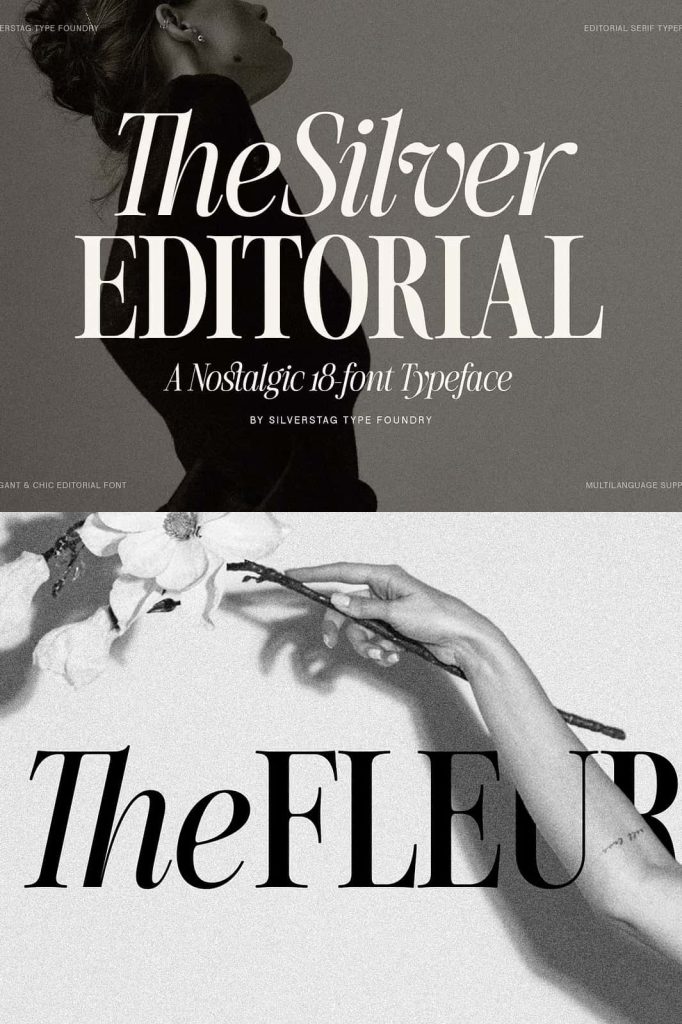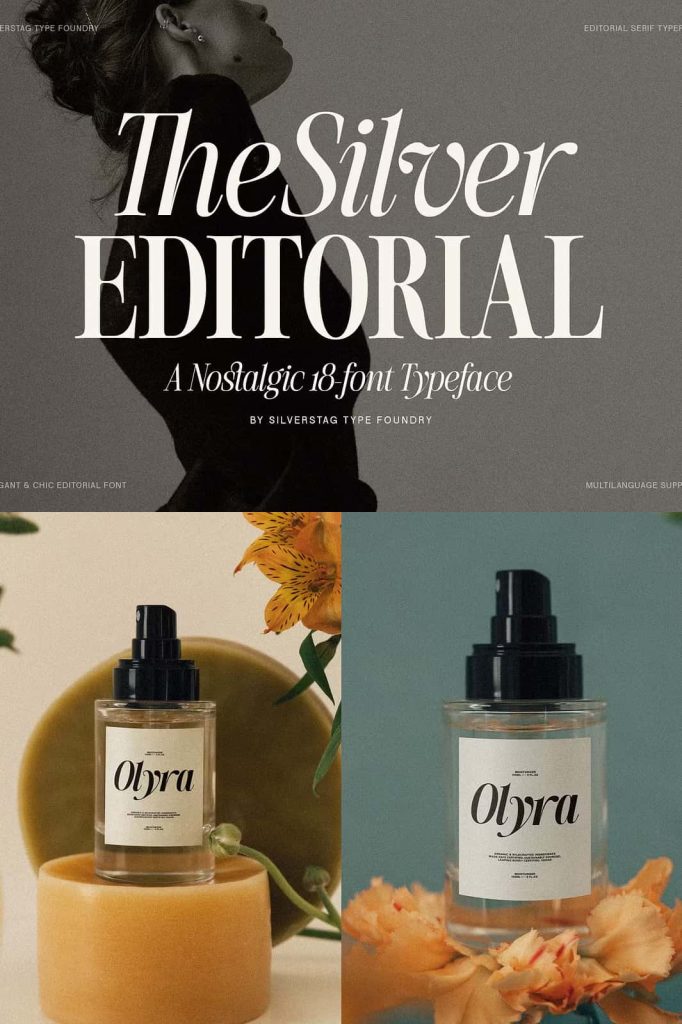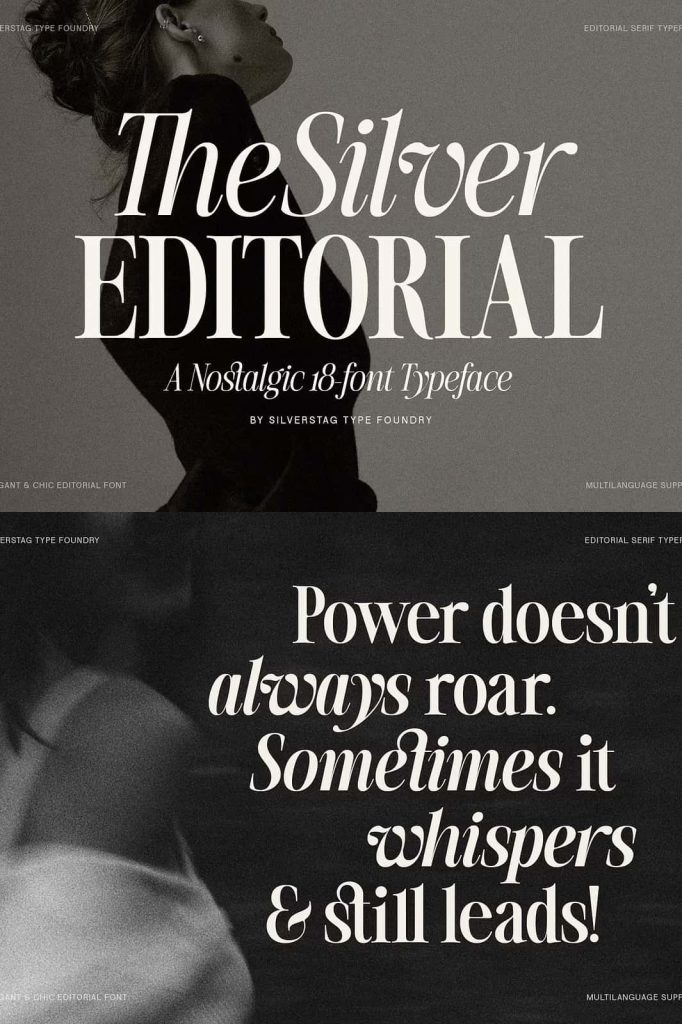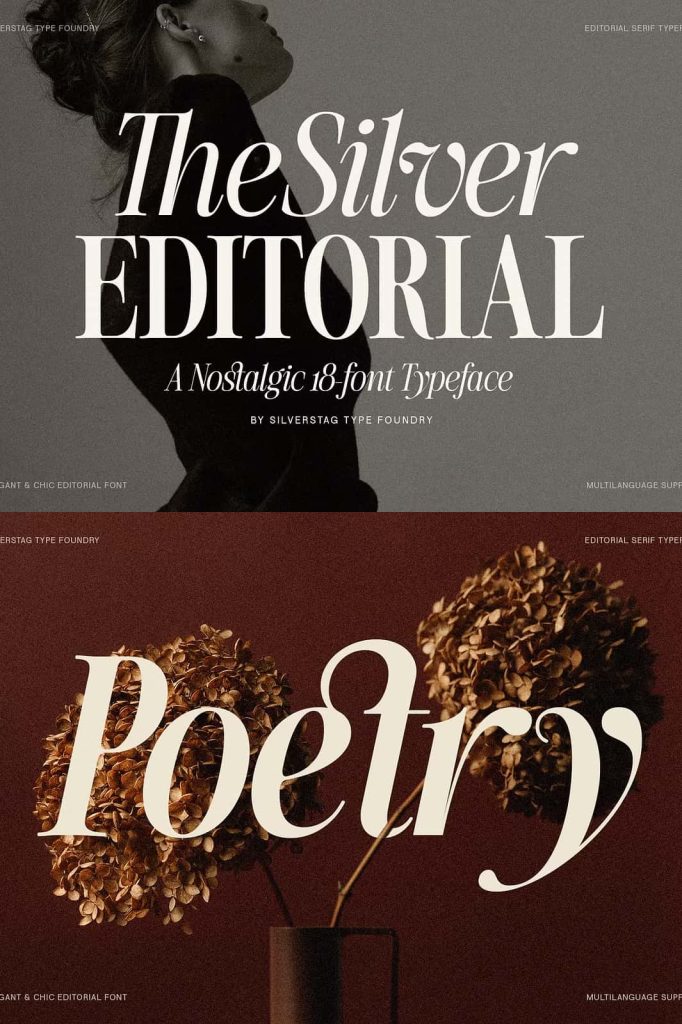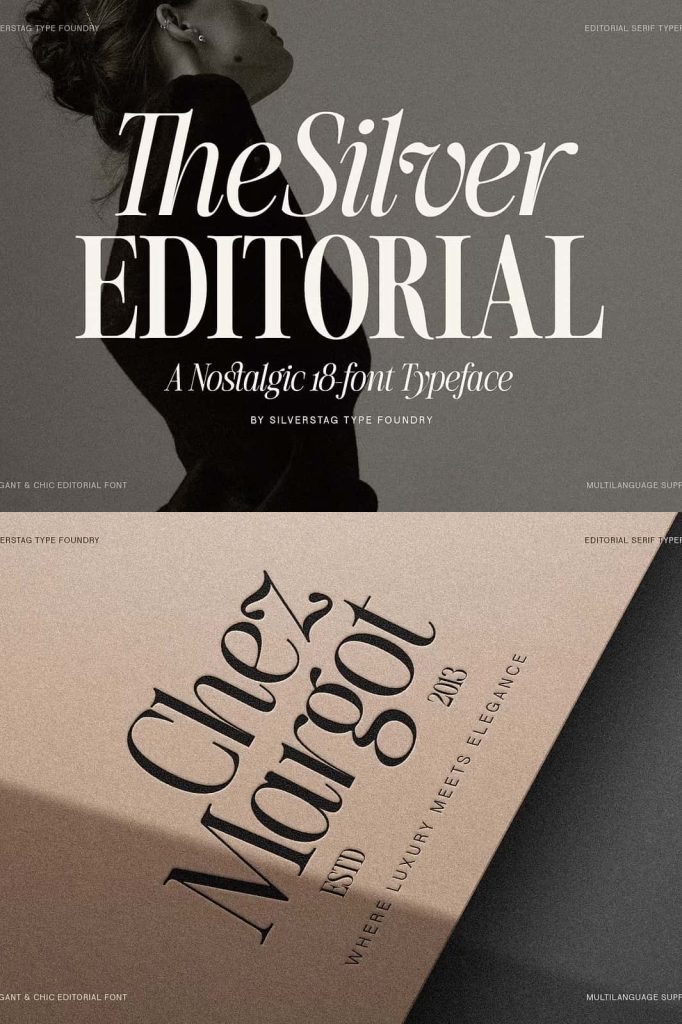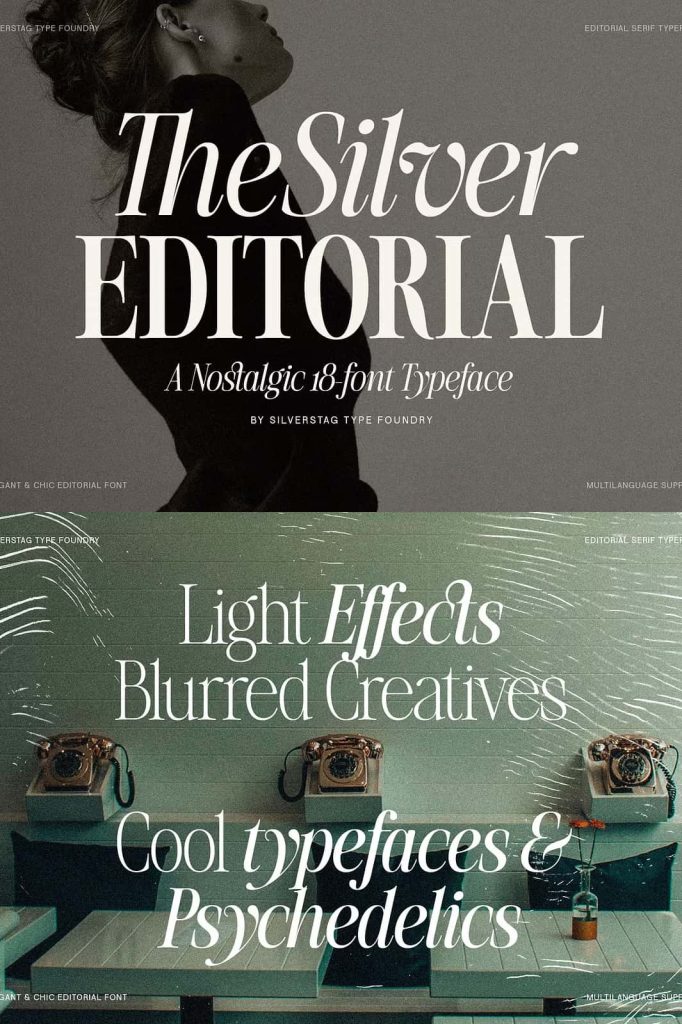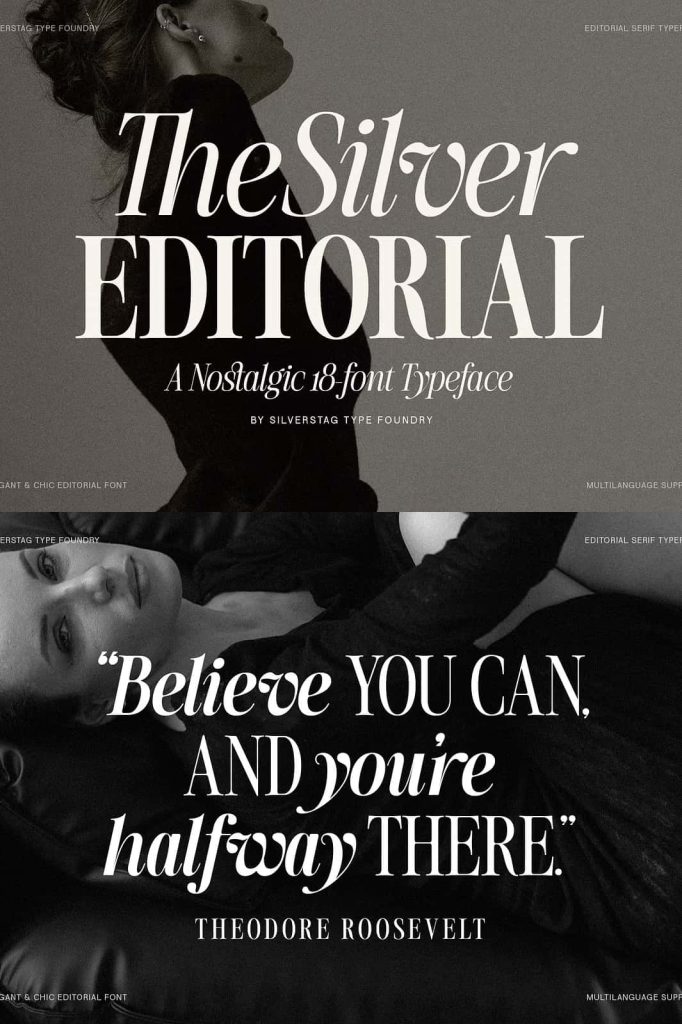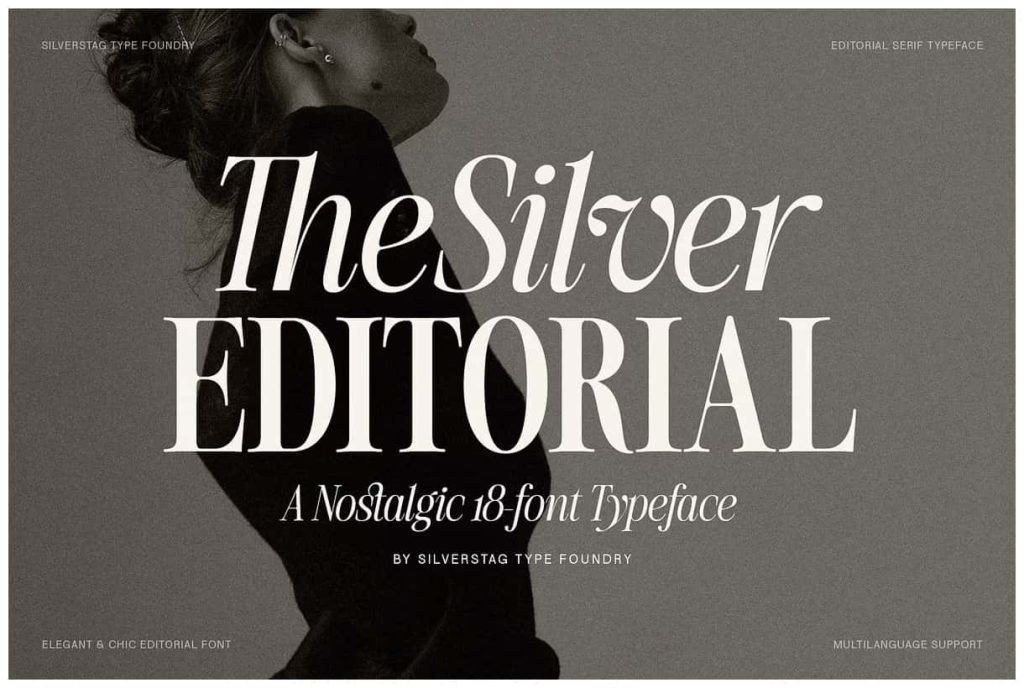
The Silver Editorial – 18 Fonts Pack
The Silver Editorial Serif Typeface: A Refined 18-Font System for Modern Elegance
The Silver Editorial is a sophisticated serif typeface that elevates editorial design through precision, elegance, and versatility. This nostalgic yet modern typeface has been fully redrawn and expanded into a complete typographic system featuring 18 fonts, including nine weights and their matching italic styles. It delivers both aesthetic beauty and practical performance, making it an essential tool for designers who demand flexibility and consistency.
This updated version builds on the success of its original release while introducing refined details and improved functionality. Designers can now explore a broader range of typographic possibilities, allowing them to create more dynamic and polished compositions. The Silver Editorial transforms text into a powerful visual element that enhances storytelling and communication.
A Complete Typeface System with 18 Fonts
The Silver Editorial offers a comprehensive set of 18 fonts, providing designers with a wide spectrum of weights and styles. Each weight has been carefully designed to work seamlessly with the others, allowing for smooth transitions and consistent visual hierarchy.
The nine weights range from light and delicate to bold and commanding. This variety enables designers to create contrast and emphasis within their layouts. The addition of matching italic styles introduces movement and elegance, giving designers even more control over their typography.
Balanced Weights for Strong Hierarchy
Each weight in The Silver Editorial serves a distinct purpose. Lighter weights bring subtlety and refinement, while heavier weights deliver strength and impact. Designers can combine these styles to guide the reader’s attention and create a structured visual flow.
This balance ensures that the typeface performs well in both display and text applications. It supports everything from large headlines to detailed editorial content without losing clarity or consistency.
Fully Redrawn for Precision and Modern Performance
The Silver Editorial has been completely redrawn to enhance its visual quality and usability. Every letterform has been refined to improve spacing, proportions, and overall harmony. This process ensures that the typeface meets the demands of modern design while preserving its original charm.
The updated design improves readability across different mediums, including print and digital platforms. Designers can rely on it to maintain sharpness and clarity at any size.
Attention to Detail in Every Character
The redesign focuses on subtle details that make a significant difference. The curves, serifs, and transitions have been carefully adjusted to create a smoother and more cohesive appearance. These refinements contribute to a polished and professional look.
This level of craftsmanship allows the typeface to stand out in high-end design projects. It reflects a commitment to quality that enhances the overall visual experience.
Designed for Beauty and Built for Function
The Silver Editorial achieves a perfect balance between aesthetic appeal and practical usability. It does not sacrifice readability for style. Instead, it integrates both aspects to create a typeface that performs reliably in a wide range of applications.
Designers can use it to build layouts that are both visually striking and easy to read. This combination makes it particularly effective in editorial design, where clarity and elegance must coexist.
Versatility Across Design Applications
The typeface adapts effortlessly to various design contexts. It works beautifully in magazines, books, and digital publications, where typography plays a central role. Its refined structure also makes it suitable for branding, advertising, and corporate design.
Designers can use The Silver Editorial to create cohesive visual systems that maintain consistency across different platforms. Its versatility ensures that it remains relevant in both traditional and contemporary design environments.
Perfect for Editorial, Branding, and Luxury Design
The Silver Editorial excels in projects that require sophistication and attention to detail. Its elegant serif style enhances editorial layouts, creating a sense of depth and professionalism. It supports long-form reading while maintaining visual interest.
In branding, the typeface helps establish a strong and memorable identity. Its refined appearance communicates quality and trust, making it ideal for luxury brands and premium products.
Ideal for Headlines, Layouts, and Identity Systems
The Silver Editorial performs exceptionally well in headlines, where its structure and contrast create a powerful visual impact. Designers can use it to craft titles that capture attention while maintaining elegance.
For layout design, the typeface provides the flexibility needed to organize content effectively. It supports both minimal and complex compositions, allowing designers to experiment with different styles.
Conclusion
The Silver Editorial serif typeface offers a refined and versatile solution for modern design. With its 18-font system, fully redrawn letterforms, and balance between beauty and function, it provides designers with the tools needed to create sophisticated and impactful work. Whether used in editorial layouts, branding, or luxury design, The Silver Editorial delivers a timeless typographic experience that meets the highest standards of quality and performance.